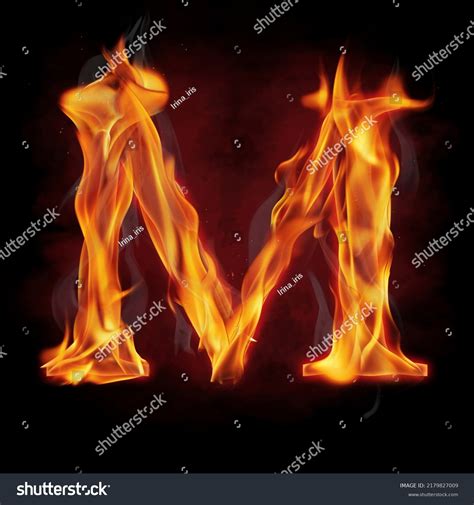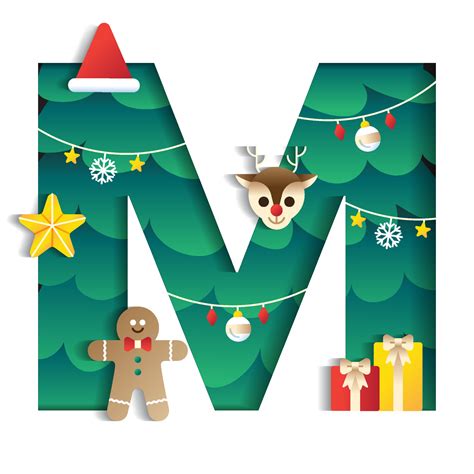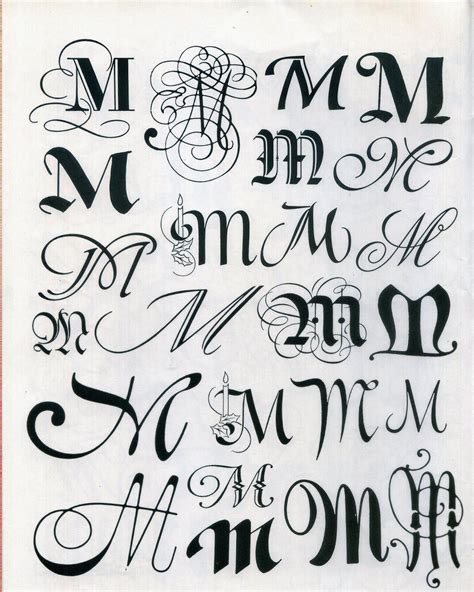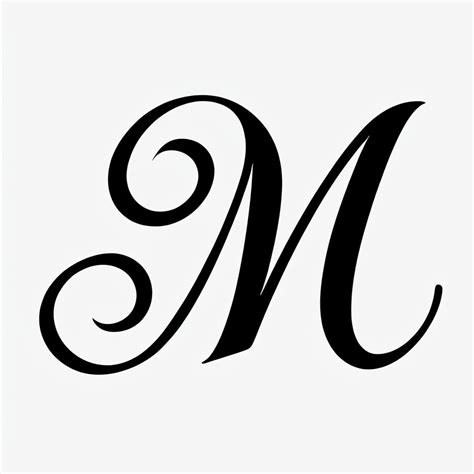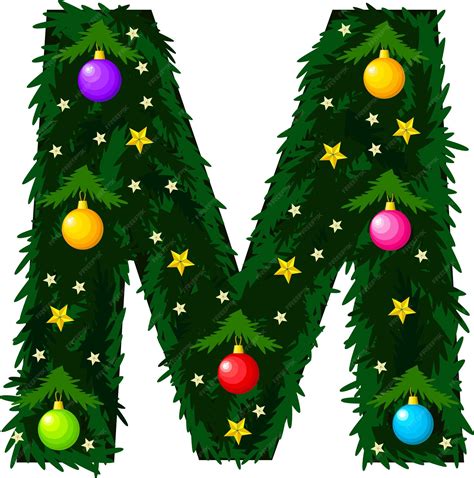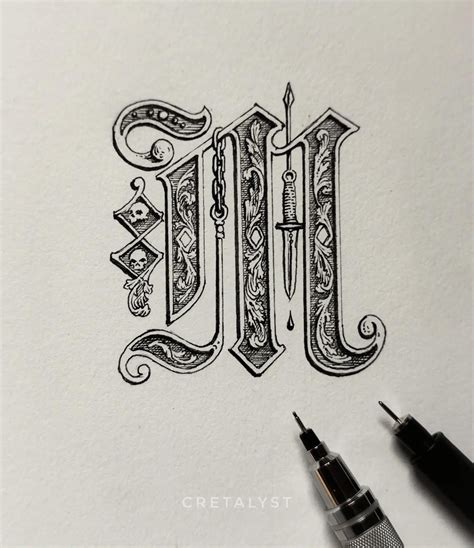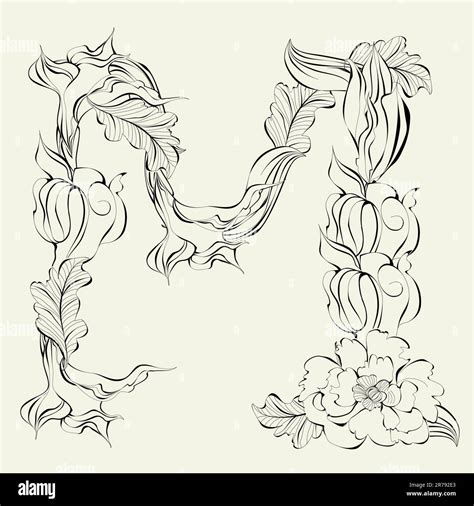
When starting a plan task that concentre on branding or personal stationery, prefer the right Fonts For Letter M can make a significant difference in how your audience perceives the character. The letter M is unique because of its balance and structural complexity, ranging from needlelike, angulate peaks to soft, rounded curve. Whether you are craft a logo, a monogram, or a large-scale display, the case you take dictates the personality of your work. By exploring several typographical styles - from refined serifs to modern sans-serifs - you can spotlight the architectural beauty of this letter while ensuring your message stay legible and impactful.
Understanding Letterform Anatomy
The missive M is arguably one of the most various characters in the alphabet. Its design bet heavily on the "vertical stems" and the "colligation" where the strokes meet in the midsection. Look on the typeface, this junction can touch the baseline, hang mid-air, or sport a pointed or flat acme. Select the good composition for your specific labor ask looking at how these elements interact with the surrounding negative space.
Serif Typefaces for Classic Elegance
Serif baptistery are dateless, much express trust, authority, and traditional values. When see a classic look for the missive M, face for fonts that offer a penetrating demarcation between thick and thin line. These typeface are unadulterated for opulence branding where the M needs to experience grounded yet pervert.
Sans-Serif for Modern Minimalism
Modern design often demands clean line and high readability. A sans-serif approach to the missive M create a bluff, geometrical presence. These fonts commonly feature consistent cva width, make them extremely effective for digital interface and contemporary minimalist son where clarity is paramount.
Popular Font Styles for Monograms
A monogram focuses altogether on the geometry of the letter. When design a personal mark, you want a font that stand alone well. Hither is a dislocation of styles ordinarily employ for this intent:
| Way | Best Use Case | Optic Characteristic |
| Script | Weddings & Invitations | Flowing, handwritten loops |
| Blackletter | Vintage & Heritage | Intricate, ornate, historical |
| Geometric | Tech & Startup | Mathematically precise, clean |
| Slab Serif | Editorial & Headlines | Heavy, potent, blockish |
Tips for Customizing Letter M
Sometimes, a standard baptistry is not plenty. Designers often manipulate the letter M to make bespoke branding. By adjusting the kerning (the infinite between missive) or altering the height of the tiptop, you can give your M a custom feel that feel unique to your brand individuality.
- Adjust the Apex: Guarantee the top point are equilibrate to make ocular harmony.
- Qualify the Join: Lowering or raising the heart conjunction changes the entire "weight" of the missive.
- Experiment with Weight: A bluff M command attending, while a hairline weight feels fragile and high-end.
- Optical Correction: Sometimes, human optic comprehend symmetrical letters otherwise, so little manual adjustment facilitate the letter look utterly centered.
💡 Line: When resize your letter M for mark media, assure you are expend transmitter formats to maintain the crisp edges of the serifs or the smoothness of the curve, as pixelation can destroy the architectural unity of the design.
Evaluating Readability in Display
While artistic expression is significant, legibility should ne'er be give. In small size, complex flourish on the letter M can bleed together. Always screen your chosen typeface at multiple size to insure that the middle junction remains distinct. High-contrast fount, in particular, may require supernumerary line space or kerning to keep their professional appearing in small digital format.
Selecting the correct typeface for your undertaking need a proportion between aesthetic prayer and functional lucidity. Whether you gravitate toward the historical charm of serif designing or the clear, efficient line of mod sans-serifs, the letter M ply a arrant canvass to showcase your design spirit. By deal the anatomy of the letter and how it interact with the specific setting of your make, you can create a persistent optical notion. Remember to centre on legibility across all mediums to insure your elect font remains effectual, whether print on a concern card or display on a high-resolution blind. Paying attention to the hunky-dory particular of kerning and shot weight will finally leave to a more polished and professional final resultant for your typography-based projects.